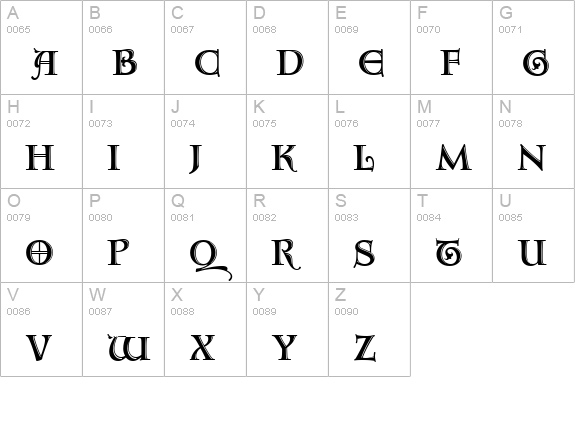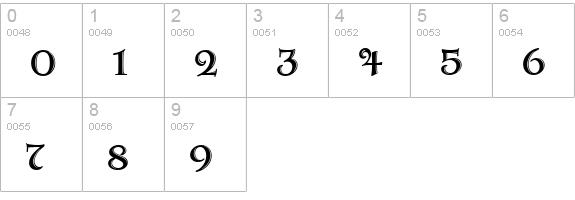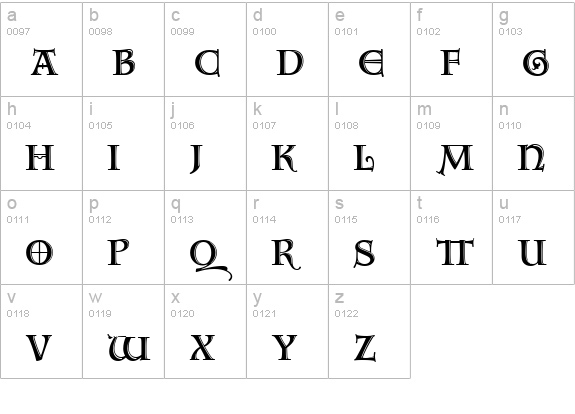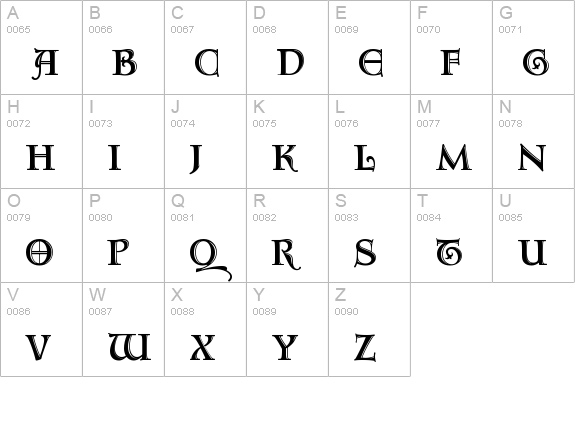
Aquitaine Initials ICG Alt Font Details
Aquitaine Initials ICG Alt font is a stunning and elegant display typeface that exudes sophistication and charm. Its intricate and ornate letterforms make it perfect for adding a touch of class to your designs. The elaborate details and decorative elements in this font give it a timeless and luxurious feel, making it ideal for branding, invitations, posters, and more. The Aquitaine Initials ICG Alt font is available for free download at FontsMarket.com, making it easily accessible for designers and creatives looking to elevate their projects with a touch of elegance. Don't miss out on this exquisite font that will surely make your designs stand out and leave a lasting impression.